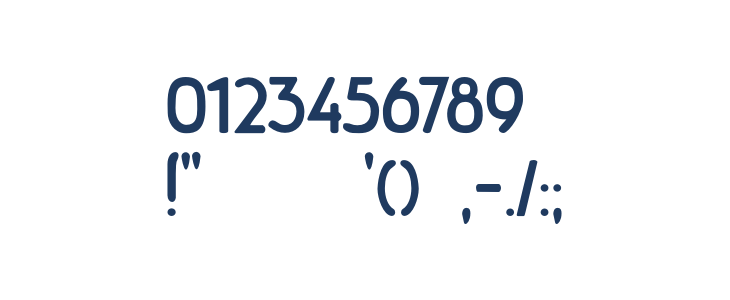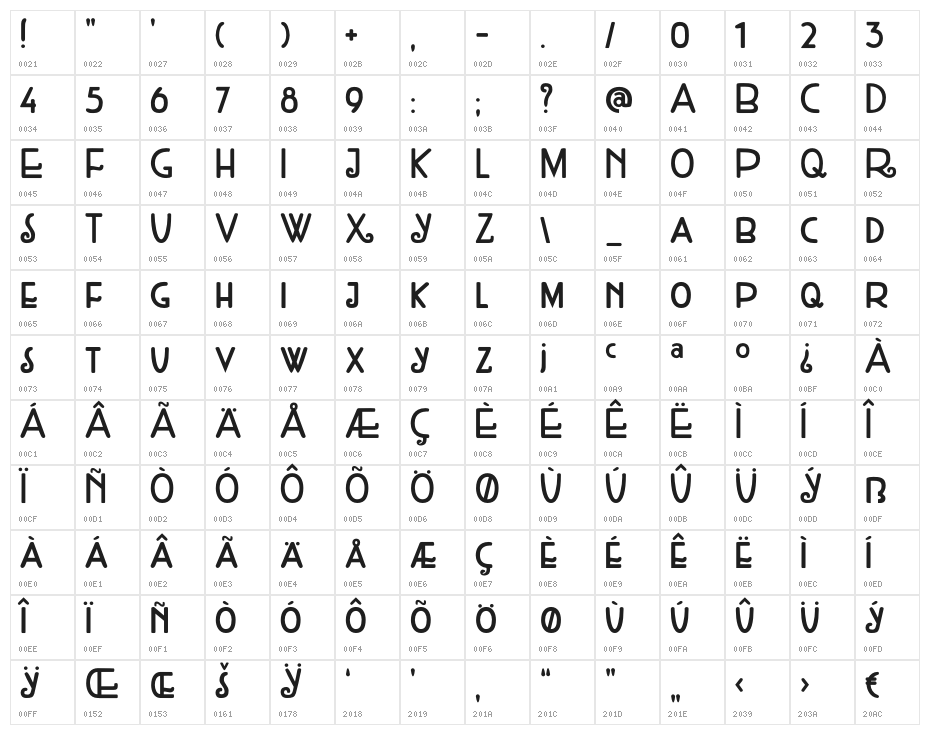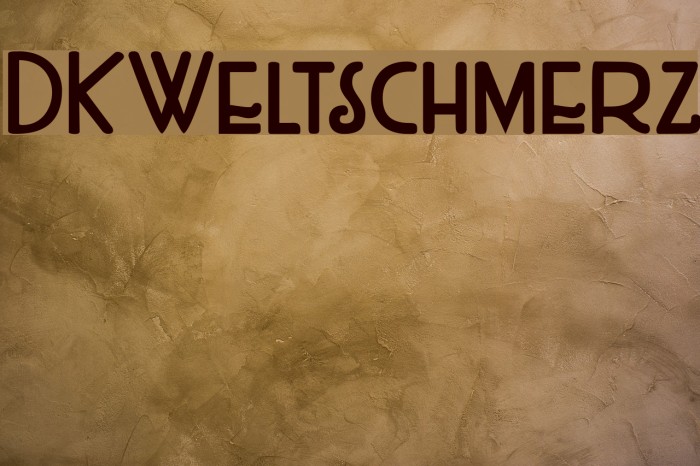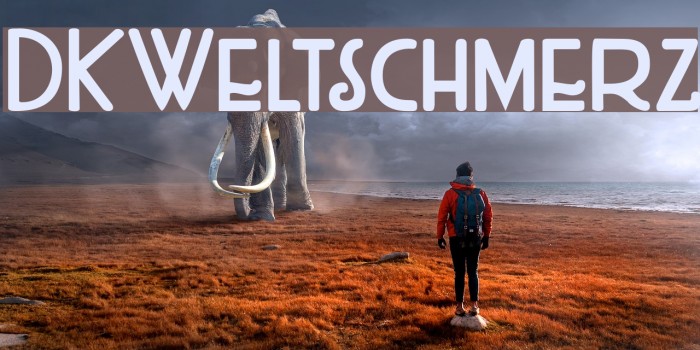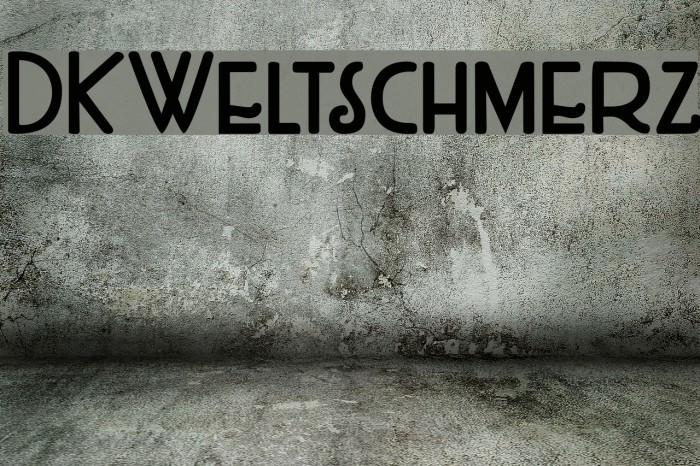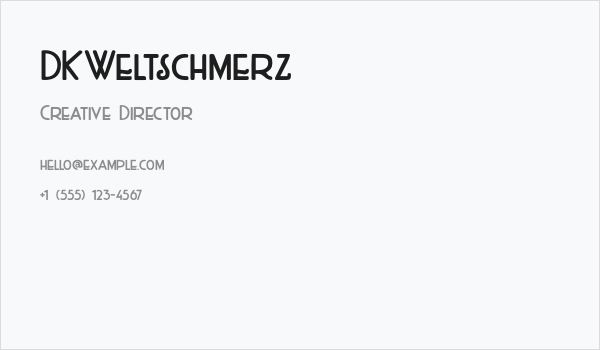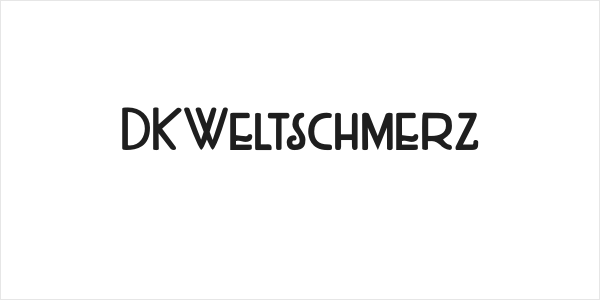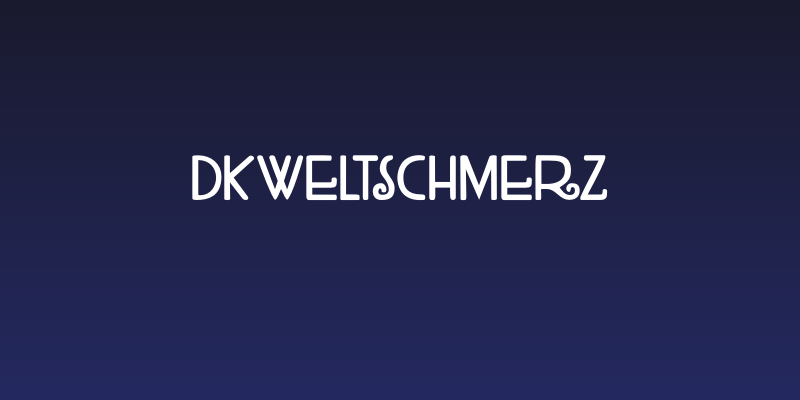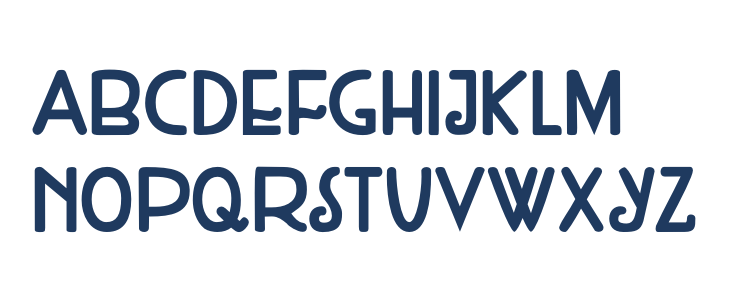
DKWeltschmerz Font
DKWeltschmerz Description
This font exhibits a playful and whimsical style, characterized by its unique and quirky letterforms. The uppercase letters feature a mix of straight lines and curves, with some letters incorporating decorative swirls and loops, adding a touch of elegance and flair. The lowercase letters maintain a consistent style, with rounded edges and a friendly appearance. The numerals are bold and easy to read, complementing the overall design. Special characters are creatively integrated, maintaining the font's distinctive personality. This font is perfect for projects that require a fun and engaging aesthetic.
| Proposed Projects | Ideal for children's books, playful branding, greeting cards, and creative posters. |